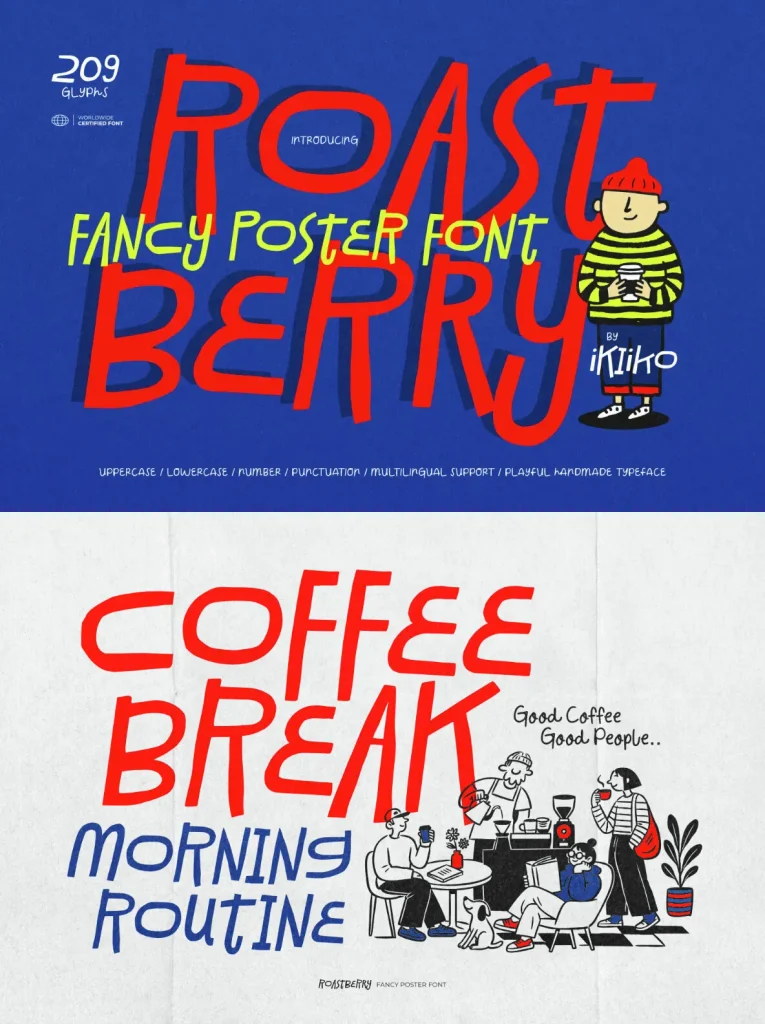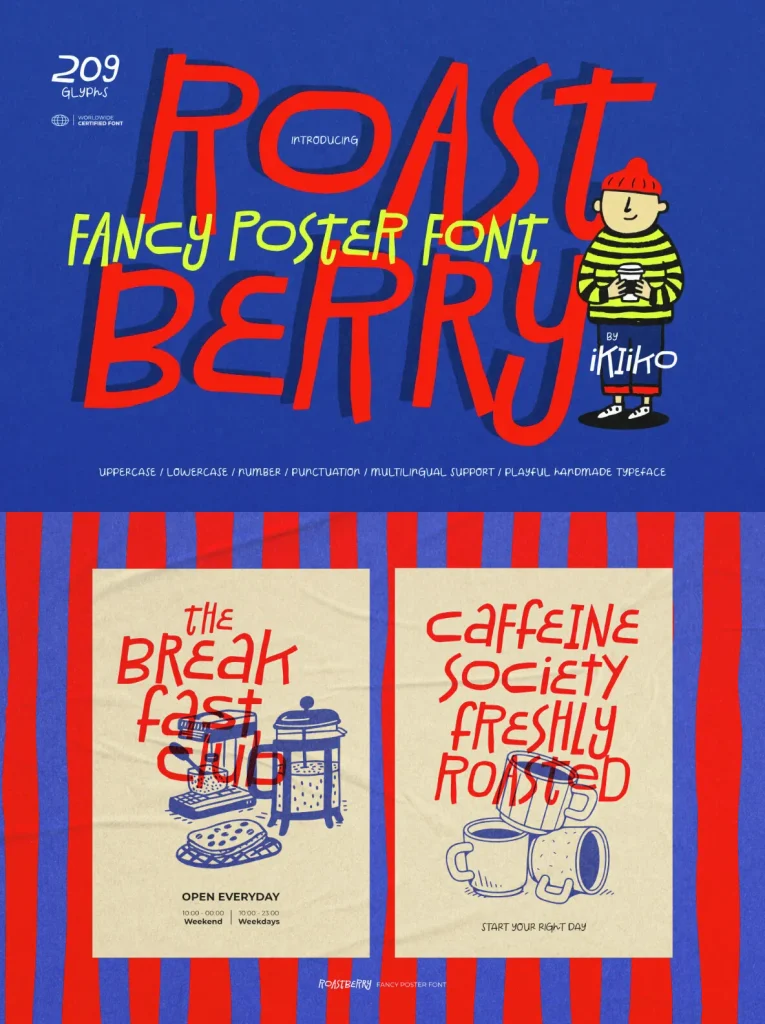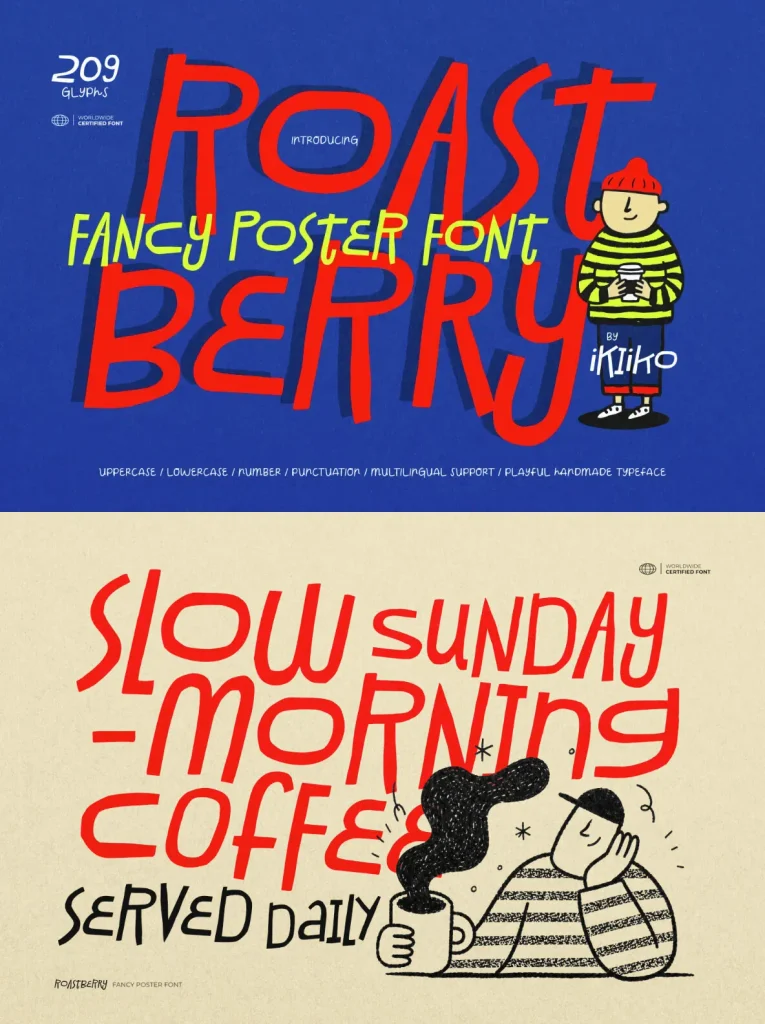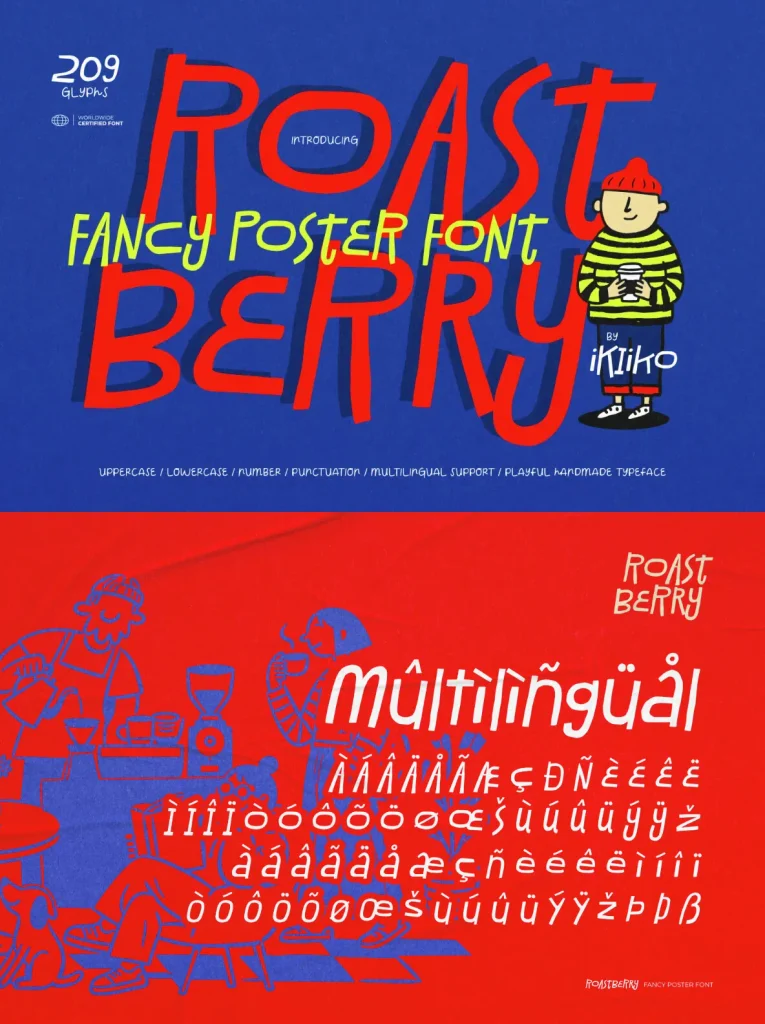
Roastberry Font
Roastberry — Posters With Indie Bite
Proudly present Roastberry – Fancy Poster Font, created by ikiiko. Roastberry is a handcrafted display typeface made for fearless headlines and expressive visual identities. Its organic personality draws from indie zines, handmade sign painting, and quirky editorial layouts. Funky, playful, and naïve-inspired letterforms give the font a stylish voice that refuses to blend in. Each character feels naturally imperfect, bringing the authentic energy of hand-drawn typography while keeping designs bold, expressive, and memorable with unapologetic charm.
Designed for creatives who value freedom over perfection, Roastberry carries the spirit of indie art, underground culture, and modern magazine aesthetics. Tall, energetic proportions and handcrafted curves make every word feel alive. Use it for eye-catching poster layouts, indie branding, café menus, packaging, children’s books, social media graphics, creative campaigns, and expressive editorial headlines. Its organic strokes create a raw yet polished rhythm, adding warmth, movement, and personality to every composition.
This fancy poster font is also well suited to posters, fashion stuff, book covers, movie titles, zines, or any project that needs a strong and expressive typeface. Roastberry gives designers a stylish handcrafted font with funky character, playful energy, organic flow, and authentic indie vibes, while remaining practical for digital and print work on both PC and Mac.